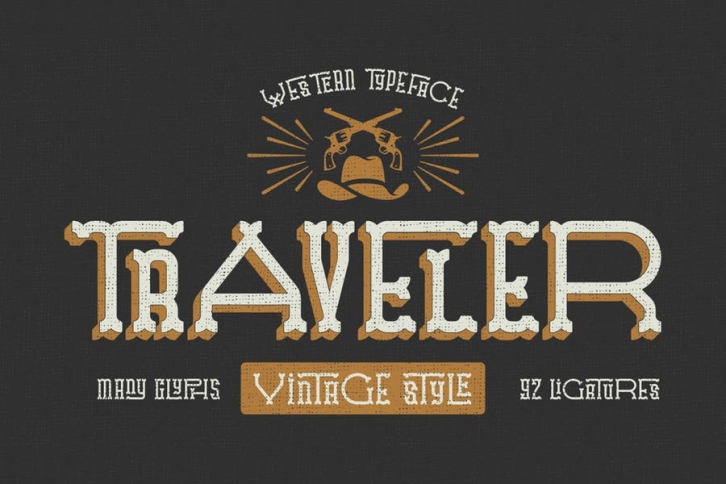
Introducing a west style font named "Traveler". It has wide and narrow characters, and lots of ligatures (automatically replaceable with open type feature). Trendy extruded effect is made in separate font file, for easy editing and coloring.